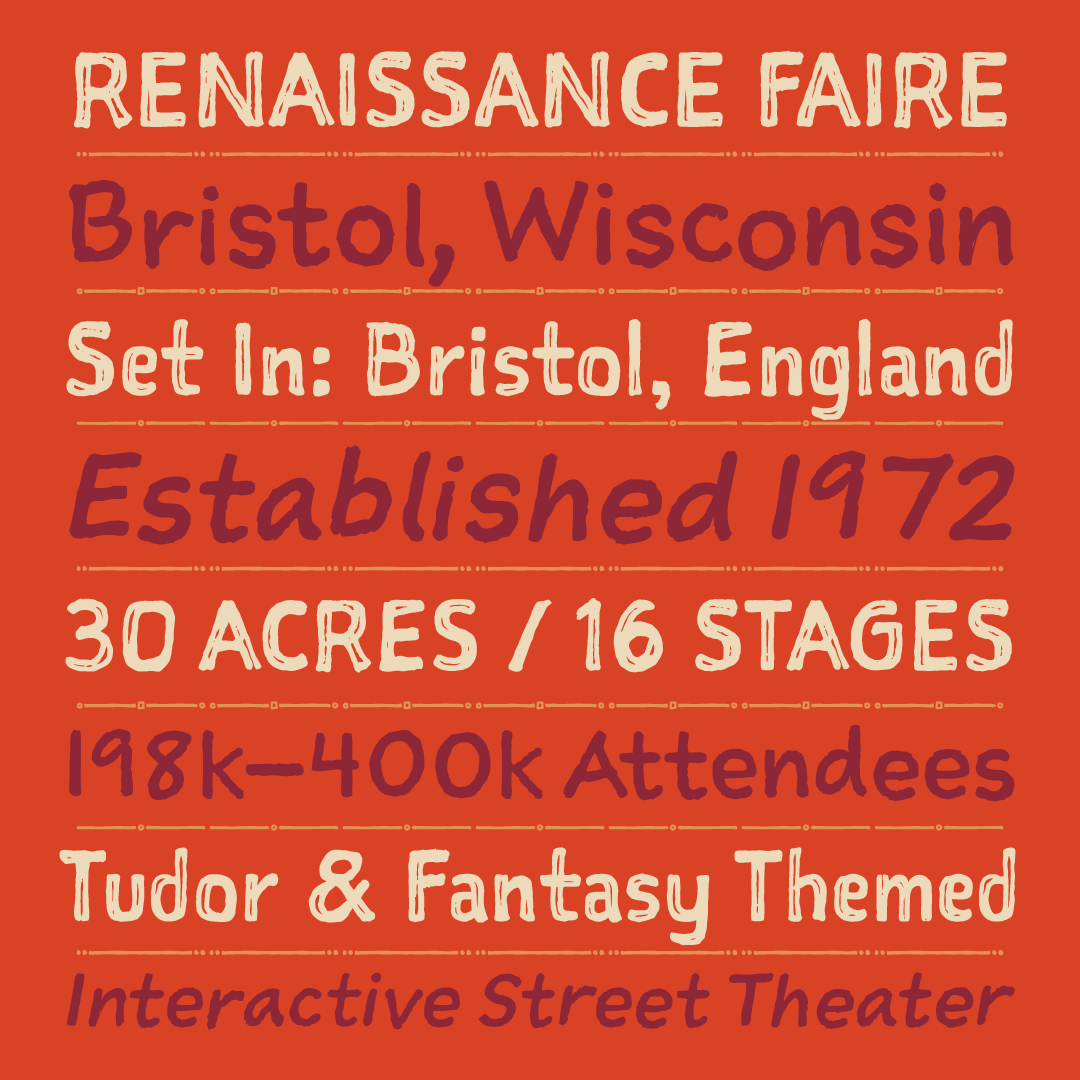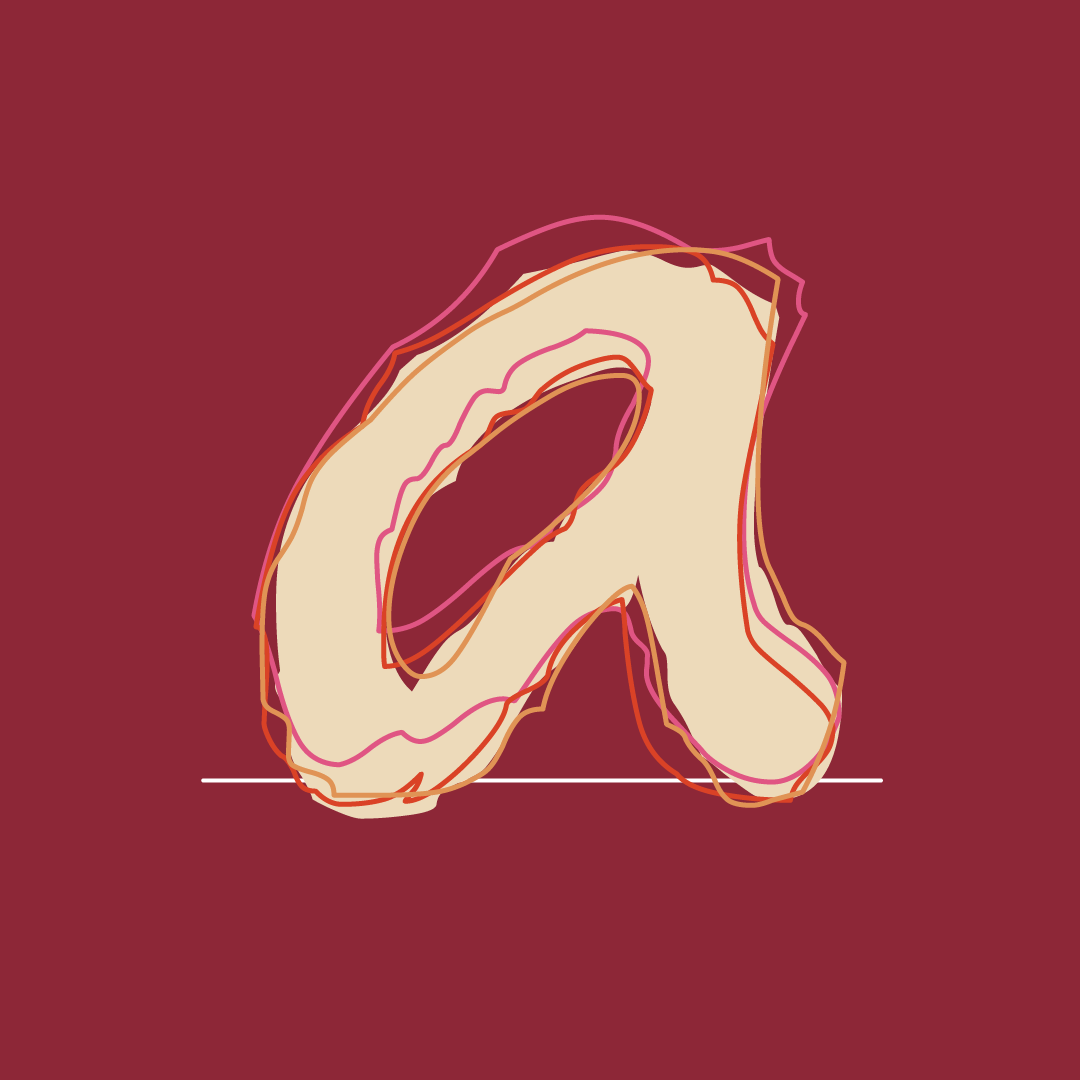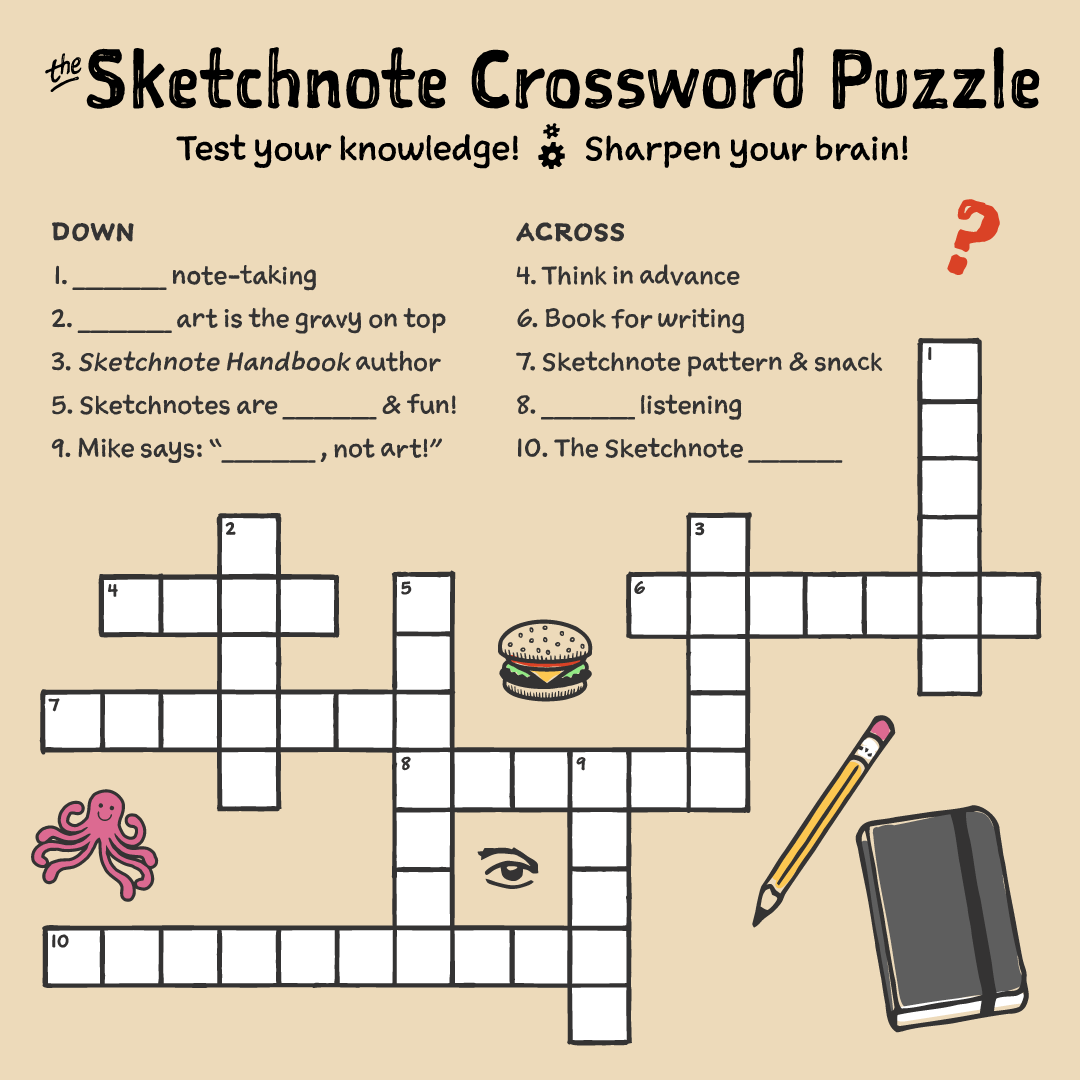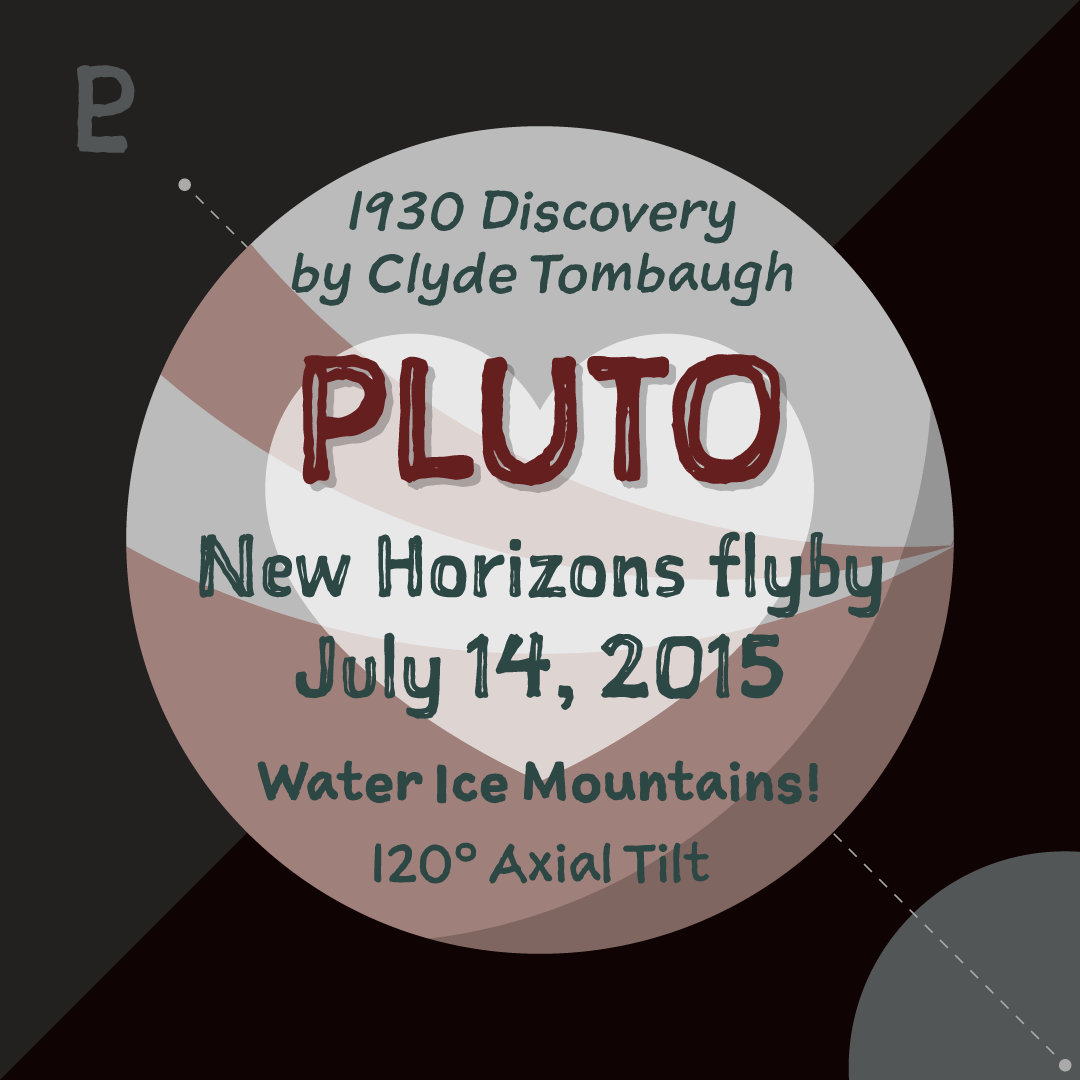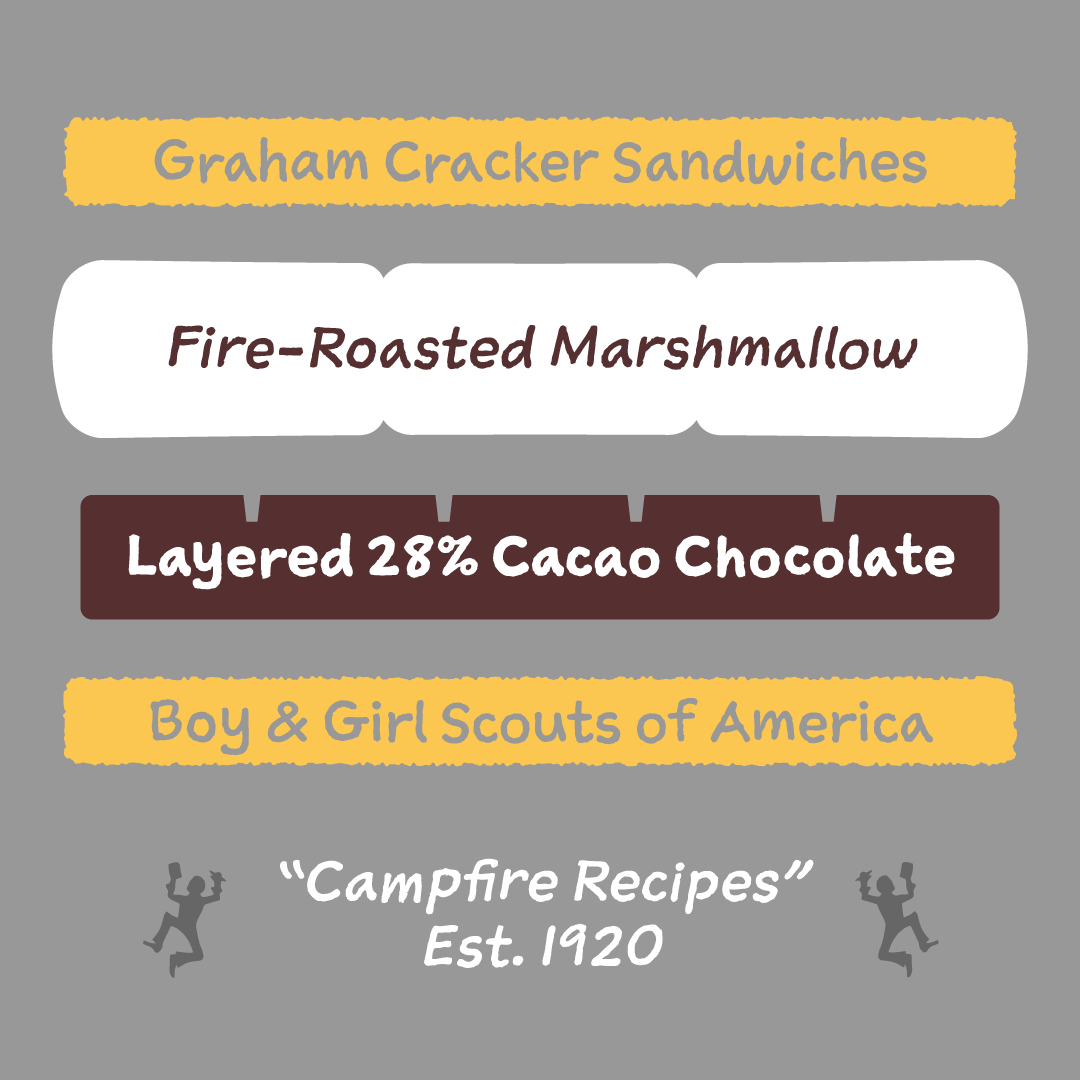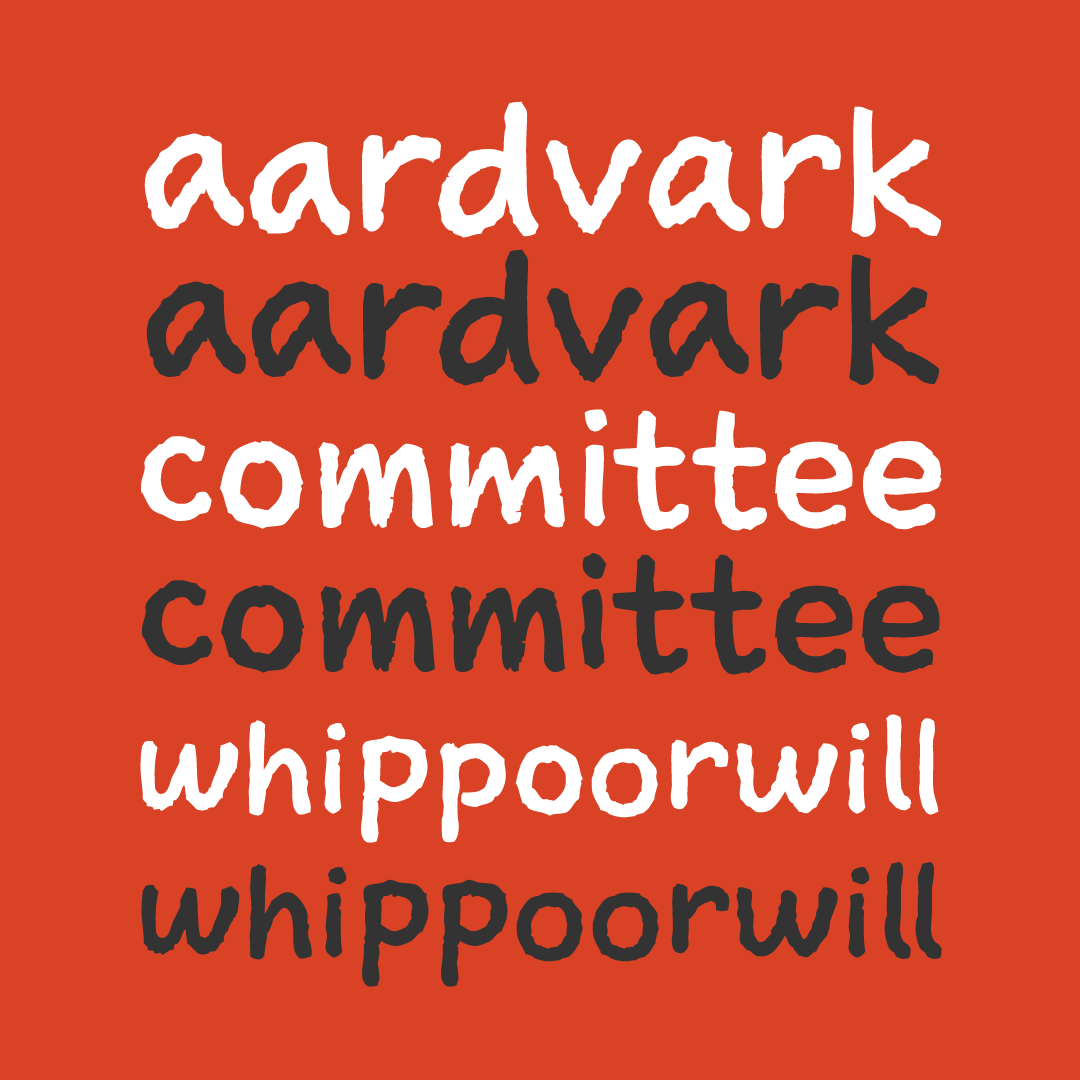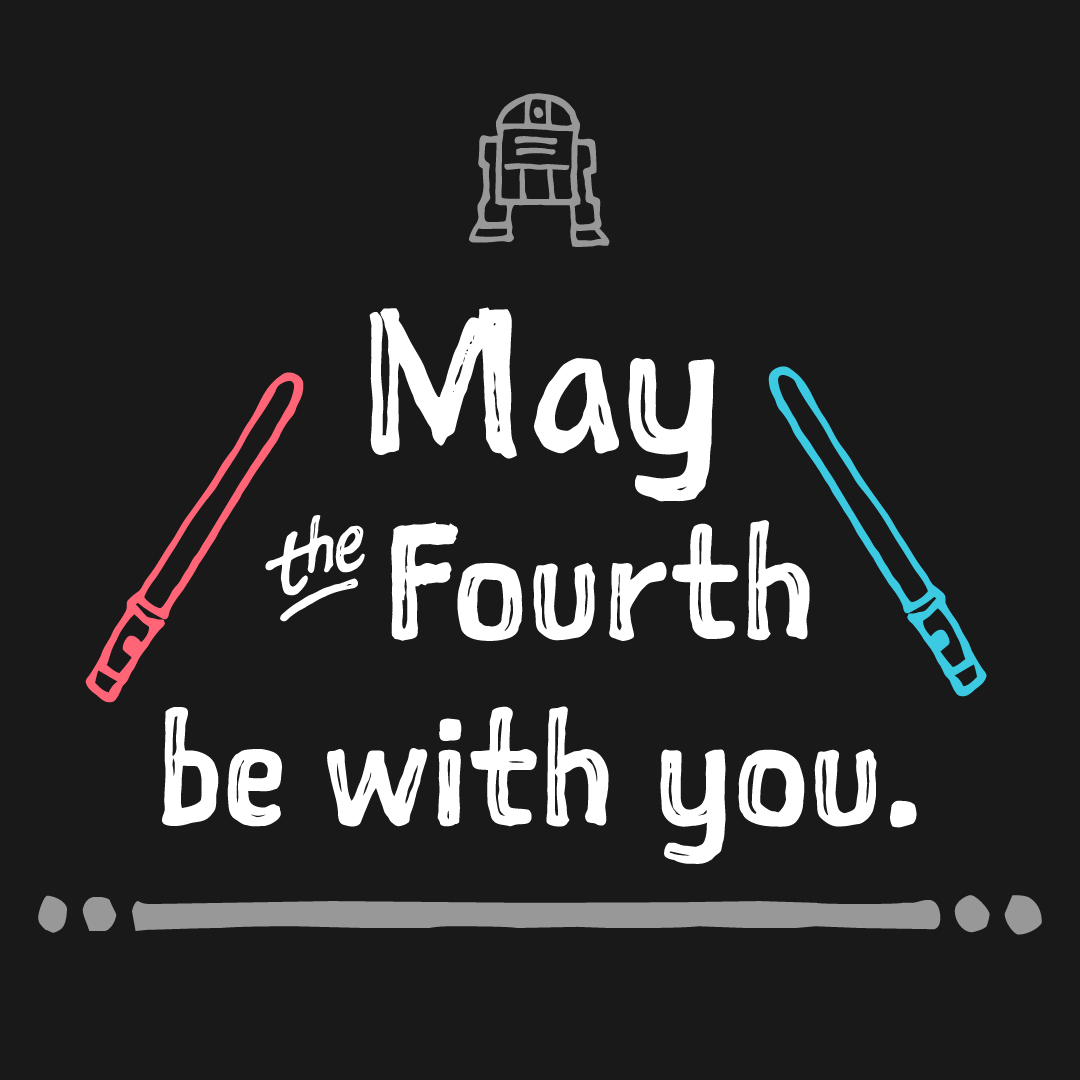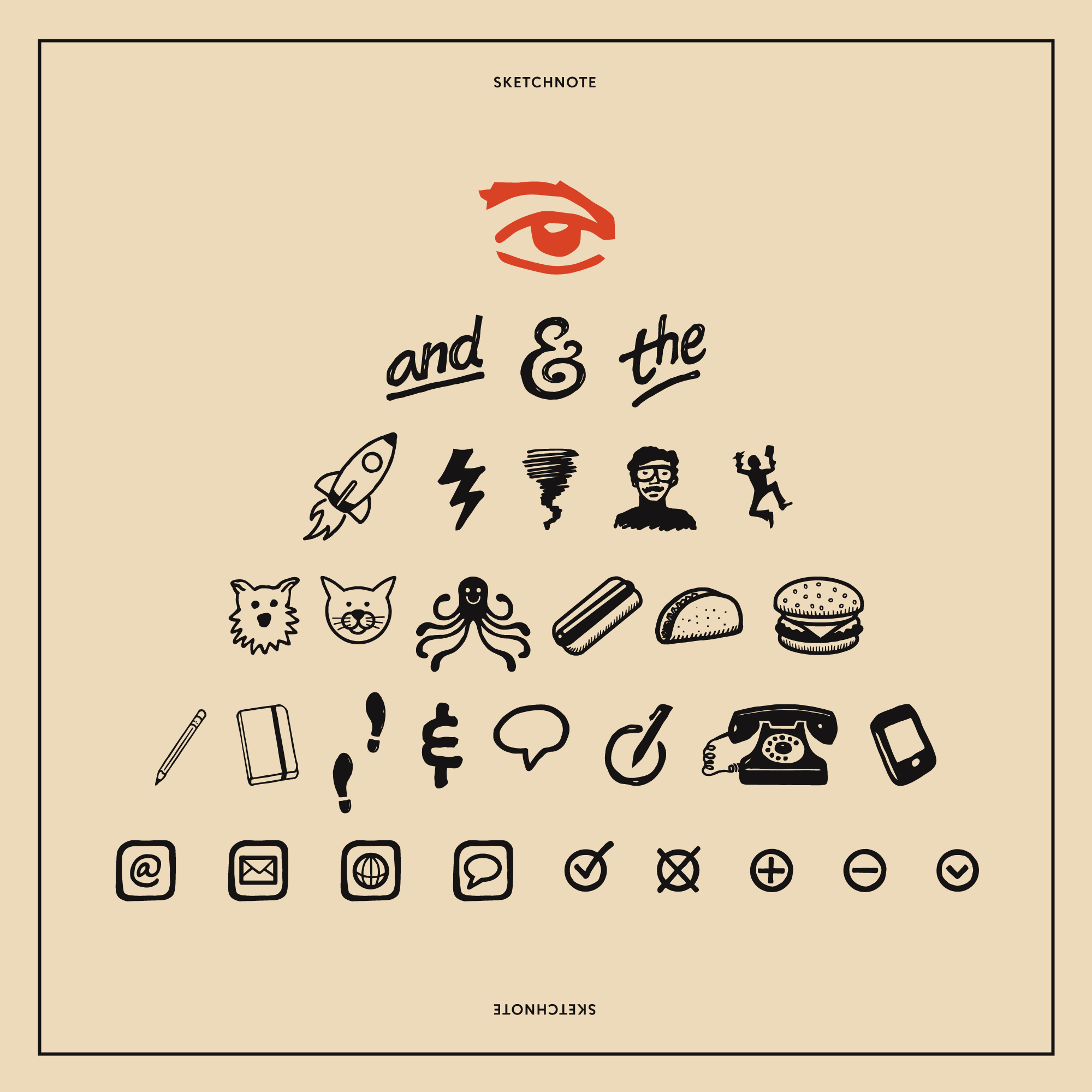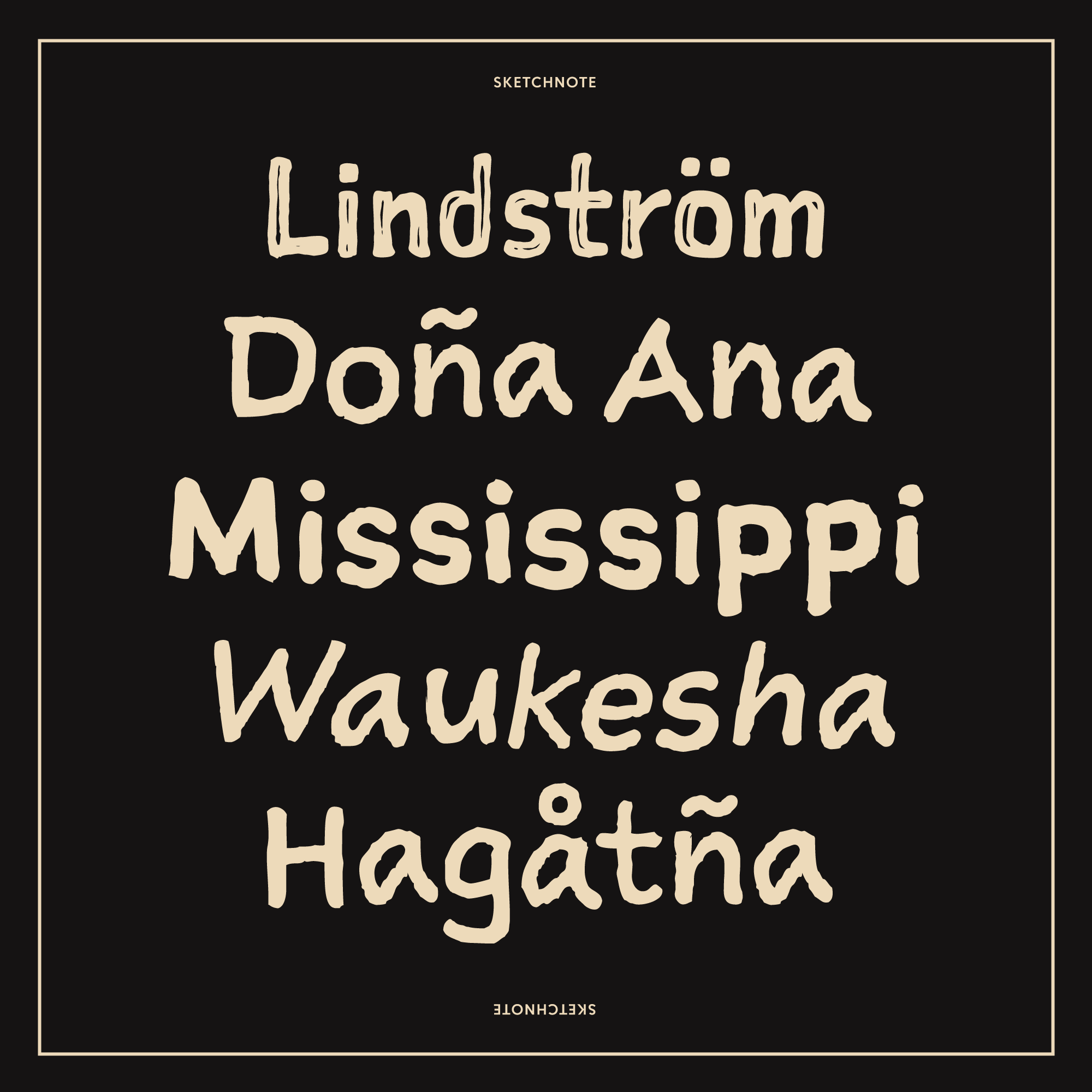
Sketchnote™
A casual script
with a bouncy baseline.
Designed by Mike Rohde
Sketchnote comes in three styles:
Sketchnote Text
Sketchnote Square
Sketchnote Dingbats
Story
The Sketchnote typeface was born of necessity: designer Mike Rohde needed a series of hand-drawn fonts to illustrate and produce his book, “The Sketchnote Handbook.” Because of its origin, this typeface was designed to be practical and convey the human character and quirks of his normal handwriting and hand-drawn lettering.
The family is comprised of five fonts: Sketchnote Text in Regular, Bold, and Italic, the somewhat compressed and bold Sketchnote Square for headlines, and the playful Sketchnote Dingbats.
Sketchnote Text is a casual script with a slightly bouncy baseline. In order to mimic the differences present in natural handwriting, OpenType features are built-in that automatically switch between multiple versions of each letter or number. In total, over 240 alternates in each of the text fonts are employed, making for a more authentic appearance.
The warm texture of Sketchnote is the result of actual ink-spread on paper captured in the scans of written letterforms and was intentionally left intact during the digitization process to preserve that feeling.
Rohde created Sketchnote Square as a display type to complement Sketchnote Text. Drawn instead of written, the letters often have neat little happenstance voids within the strokes. Sketchnote Dingbats features a selection of icons, rules, and arrows to provide some functional and fun tidbits, handy for bringing additional life to any design.
Features
Additional features include: Kerning, Fractions, Standard Ligatures, Ordinals, Case-Sensitive Forms, Capital Spacing, Stylistic Sets, and Ornaments.